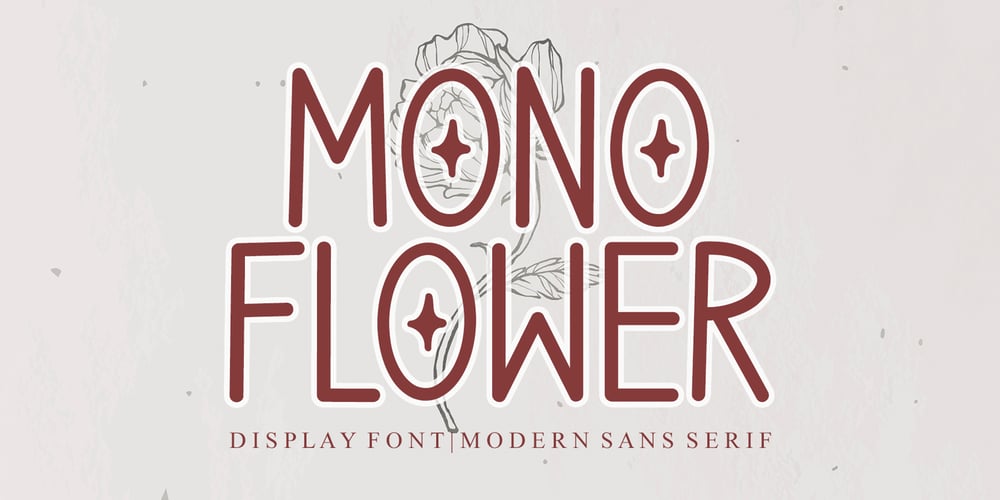
Mono Flower
Mono Flower font
Mono Flower Font Family was designed by Ahmad Afandi and published by Letterafandi Studio. Mono Flower contains 2 styles and family package options. MONO FLOWER is a modern sans serif font. This font is perfect for logos, greeting cards, package design, brand identity, craft designs, any DIY projects, book titles, wedding invitations, packaging, and more.